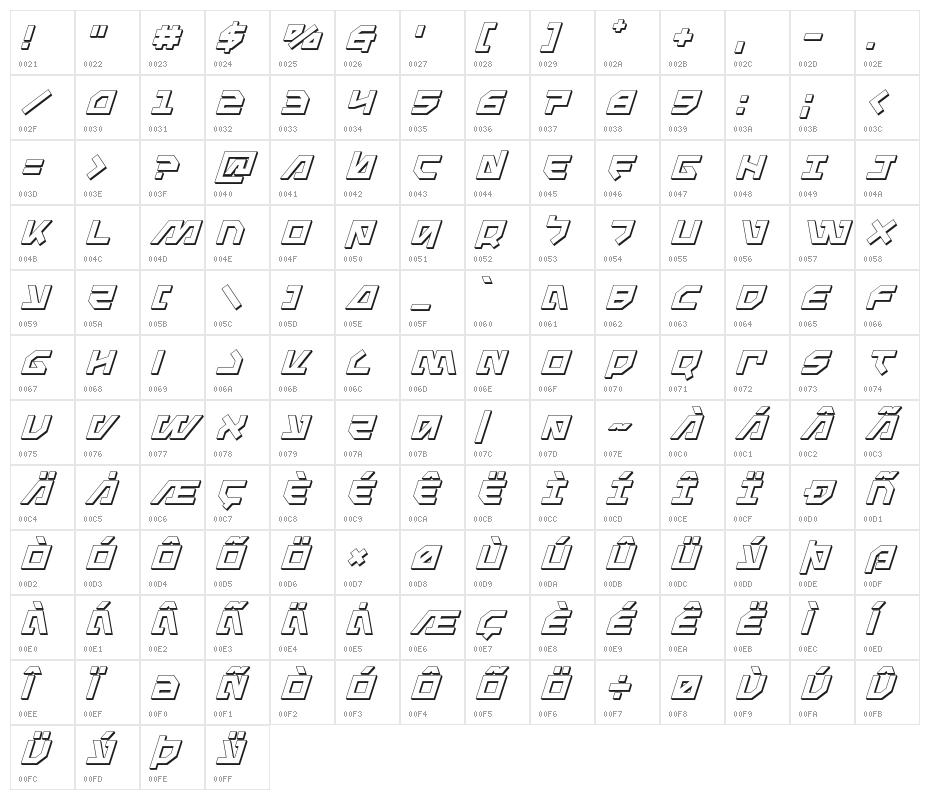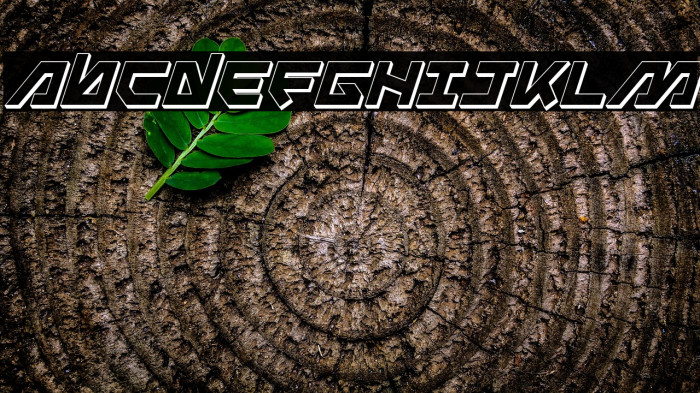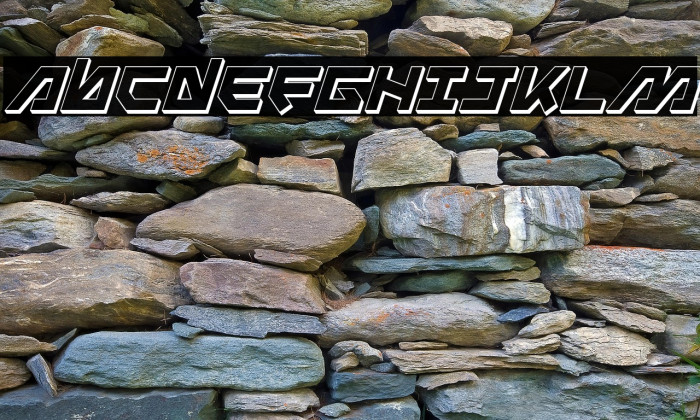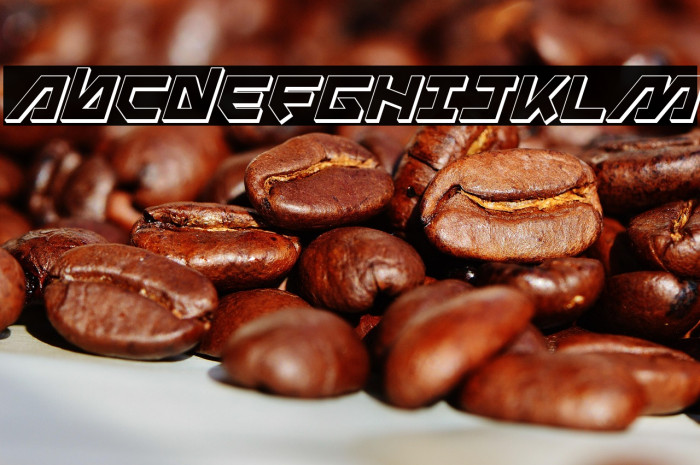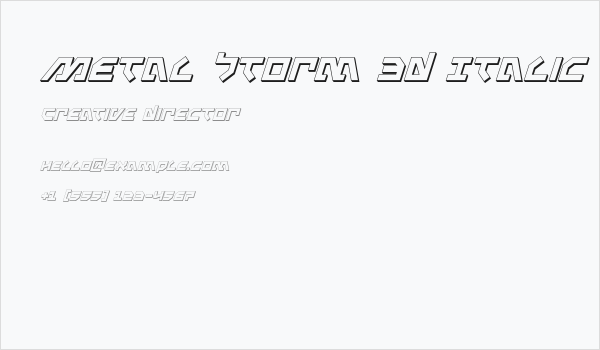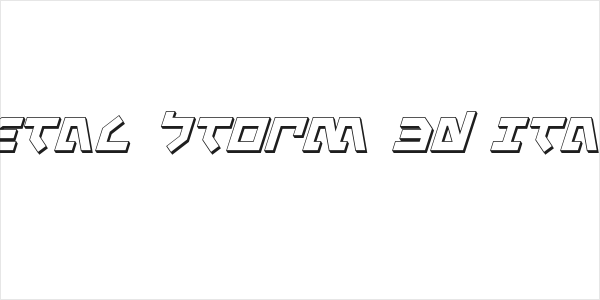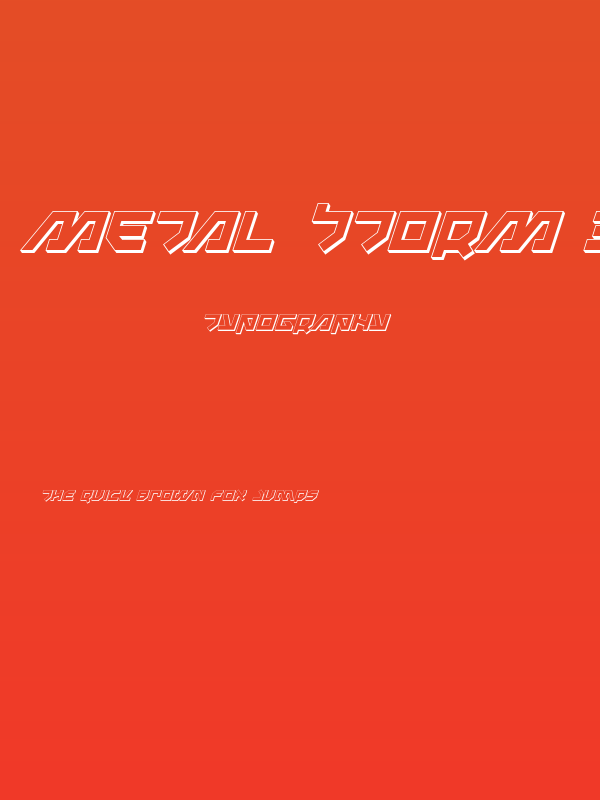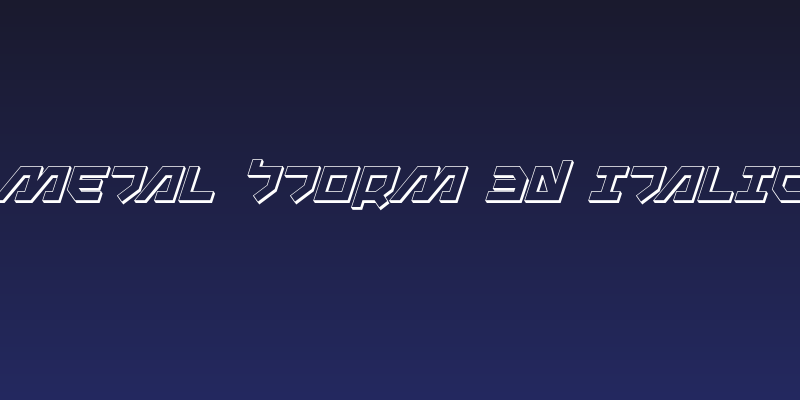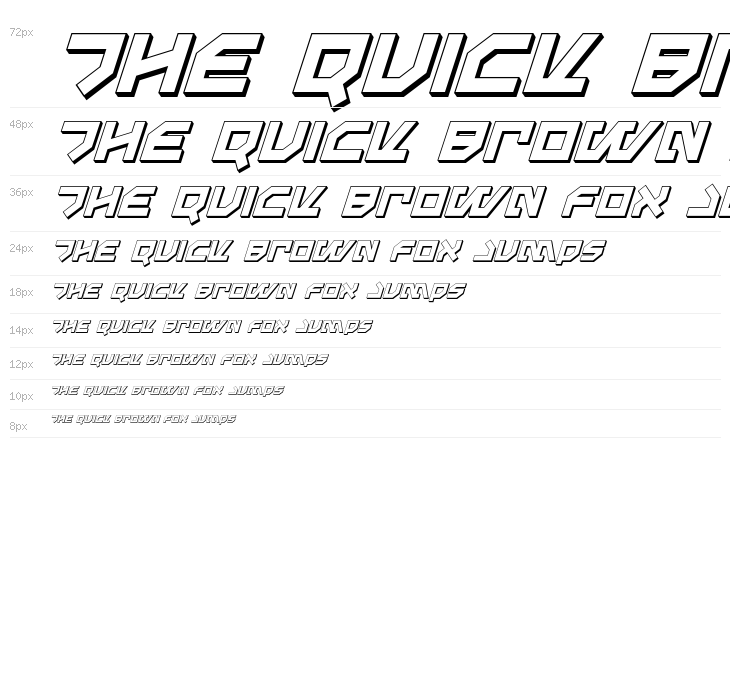
Metal Storm 3D Italic Font
Metal Storm 3D Italic Description
This font features a bold, angular design with a 3D effect that gives it a futuristic and dynamic appearance. The characters are italicized, adding a sense of motion and energy. Each letter is outlined with a shadow, enhancing the three-dimensional look. The font is highly stylized, with sharp edges and geometric shapes, making it stand out in any design. It is suitable for projects that require a modern and edgy aesthetic, such as technology-related branding, video game titles, or sci-fi themed posters. The numbers and special characters maintain the same bold and angular style, ensuring consistency across all text elements.
| Proposed Projects | Ideal for technology branding, video game titles, sci-fi posters, and modern advertising. |